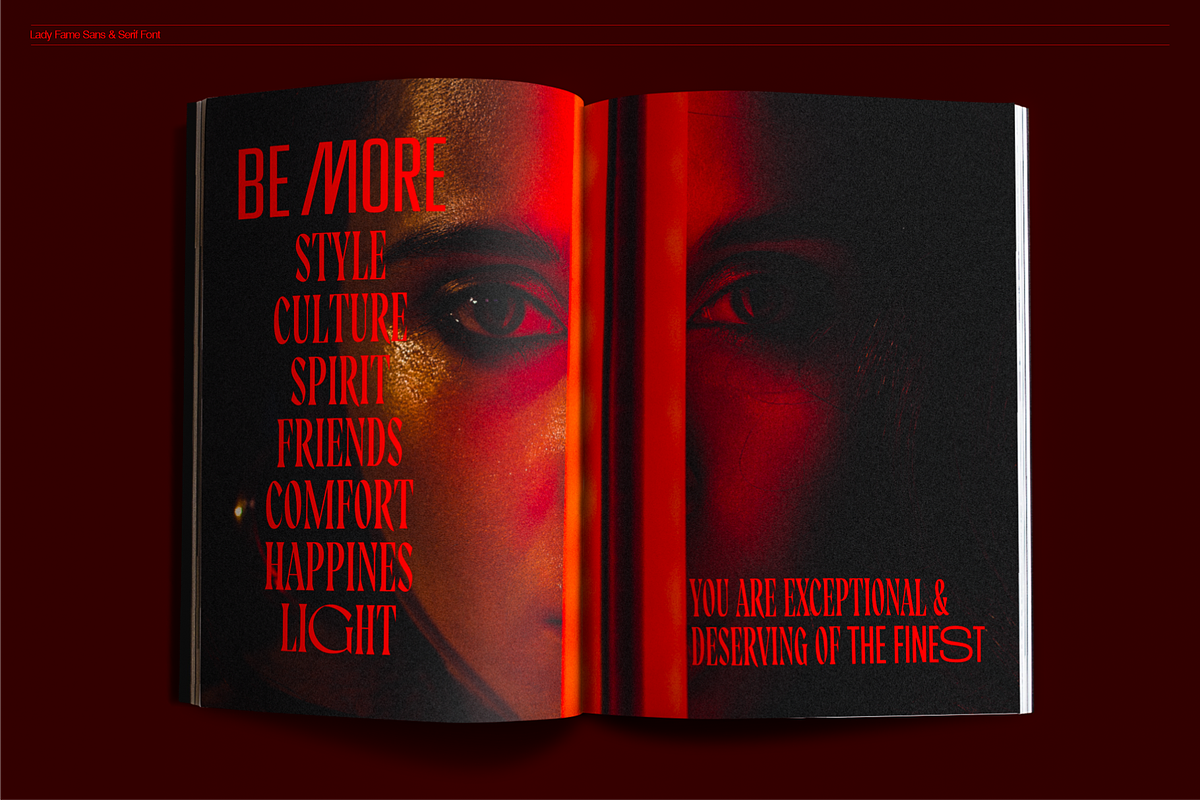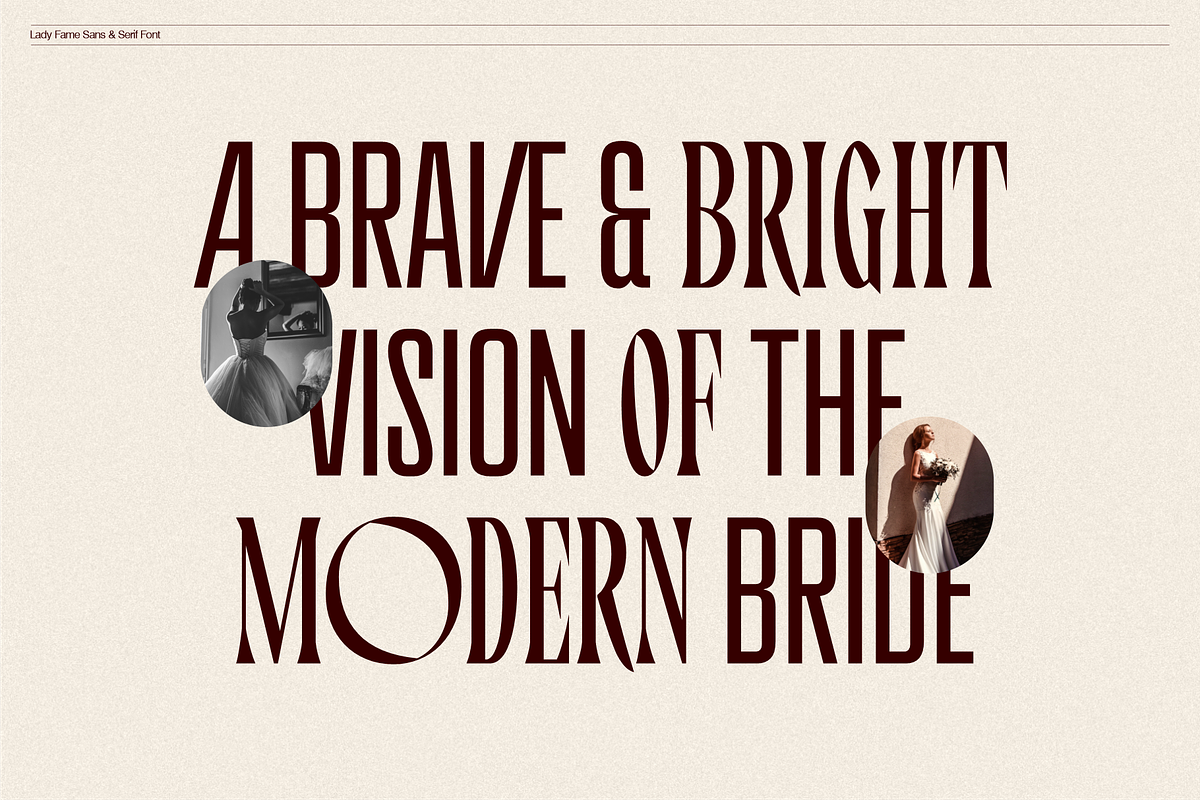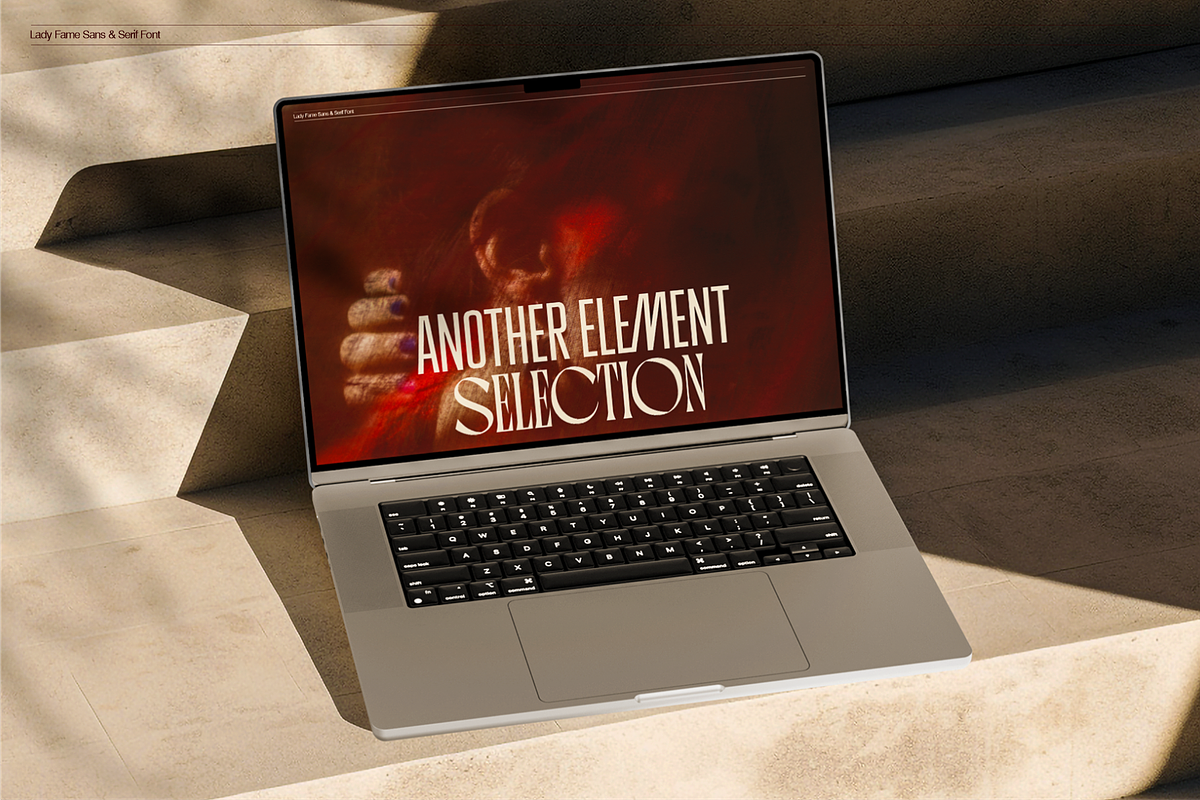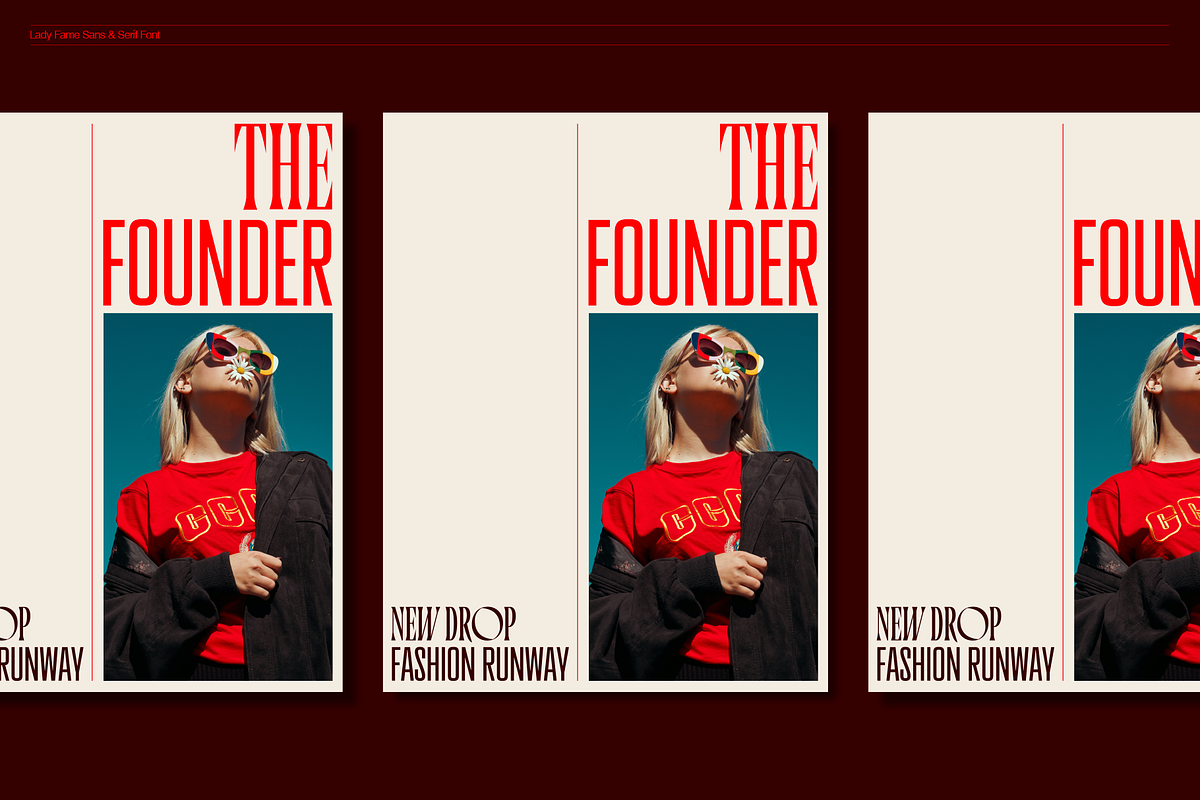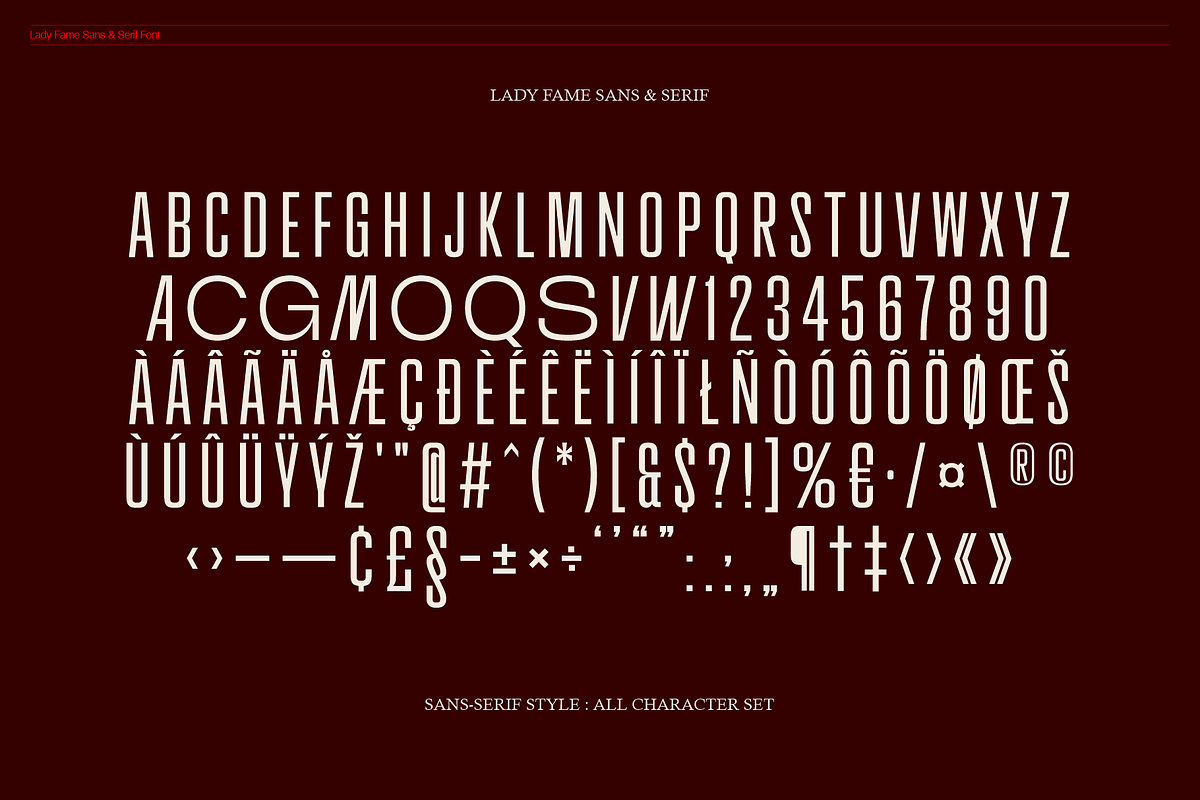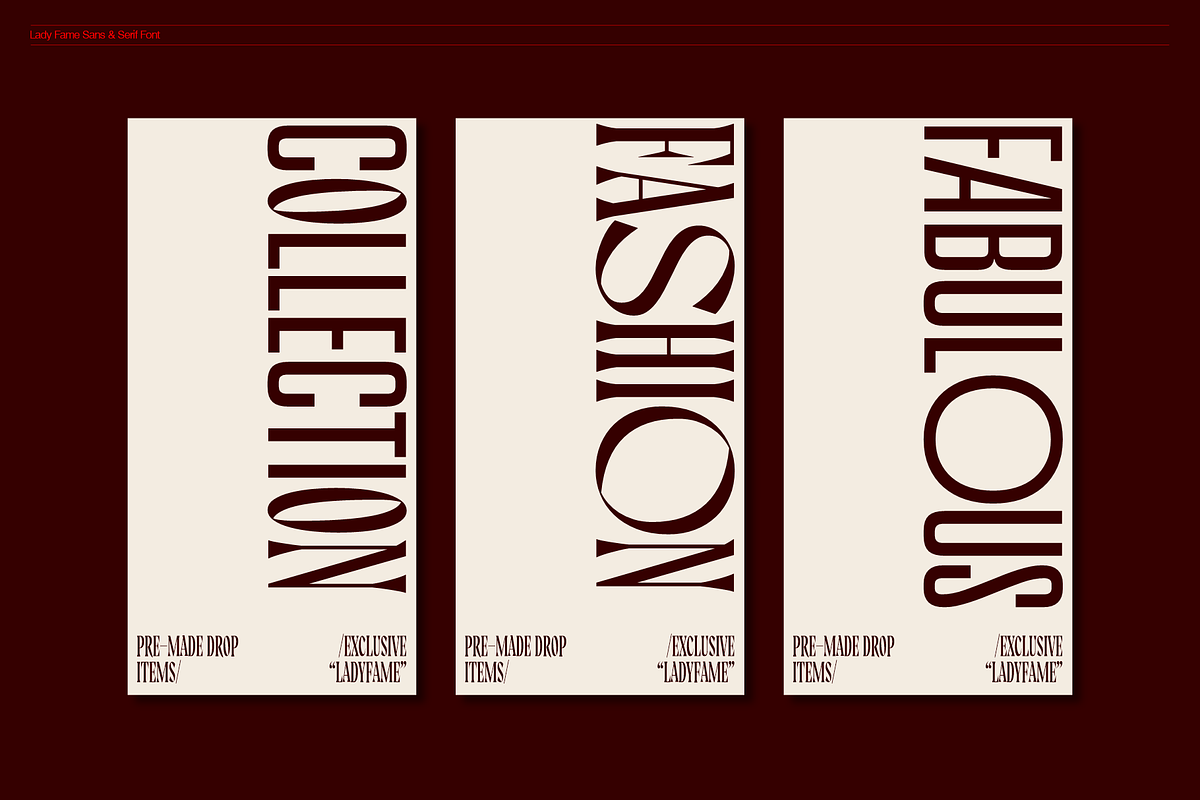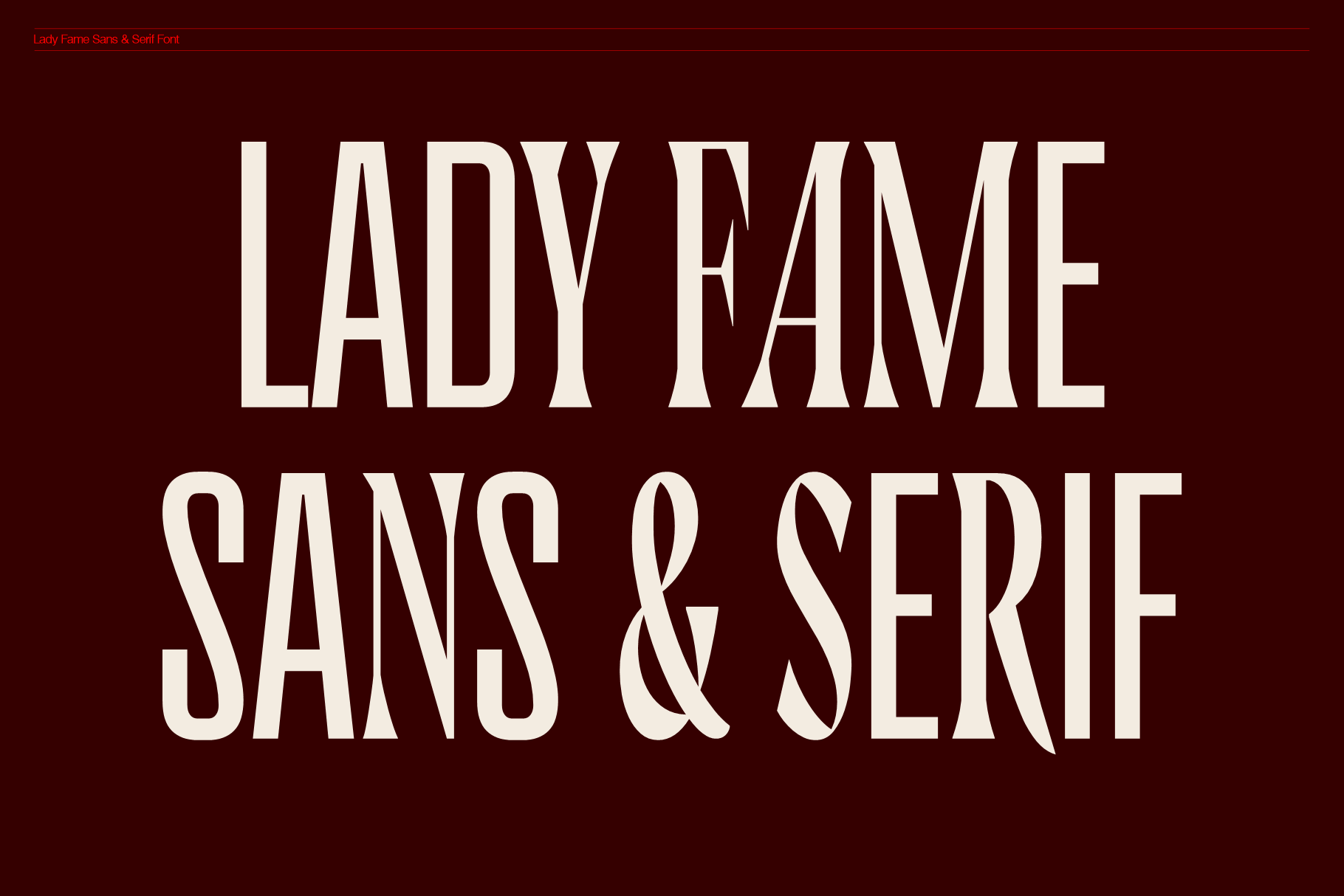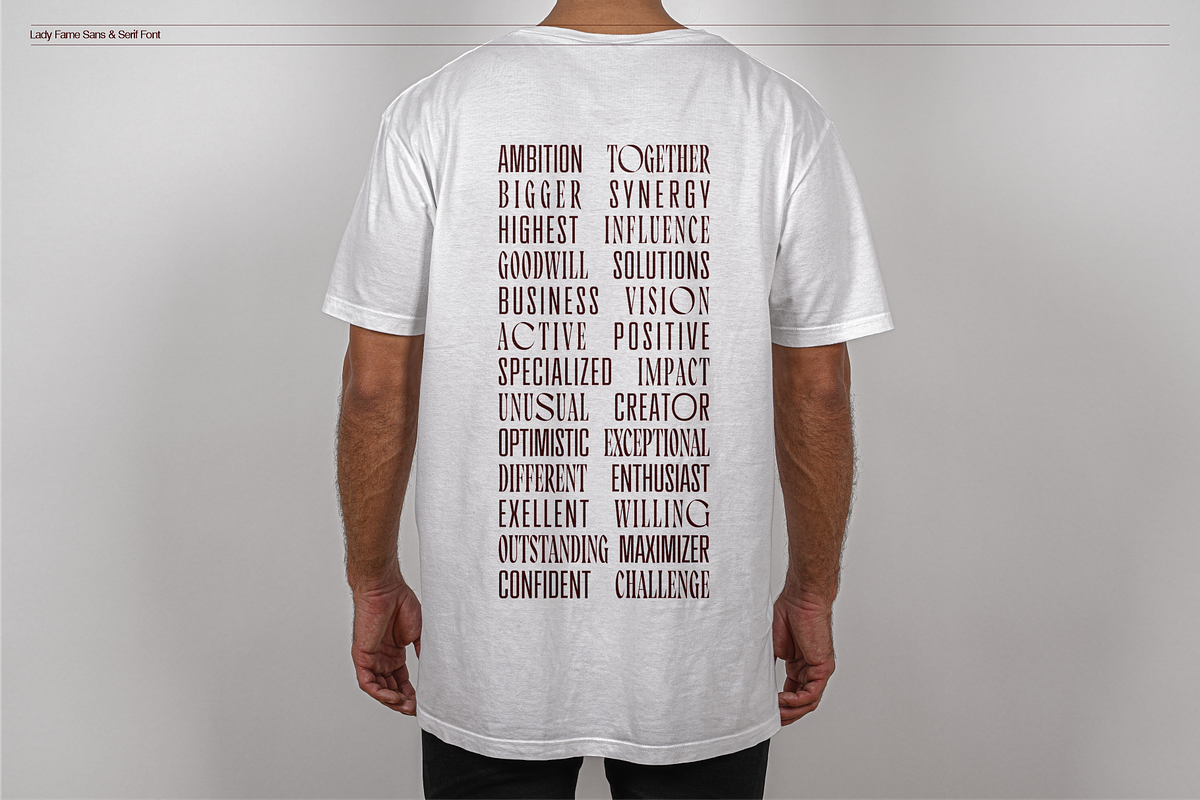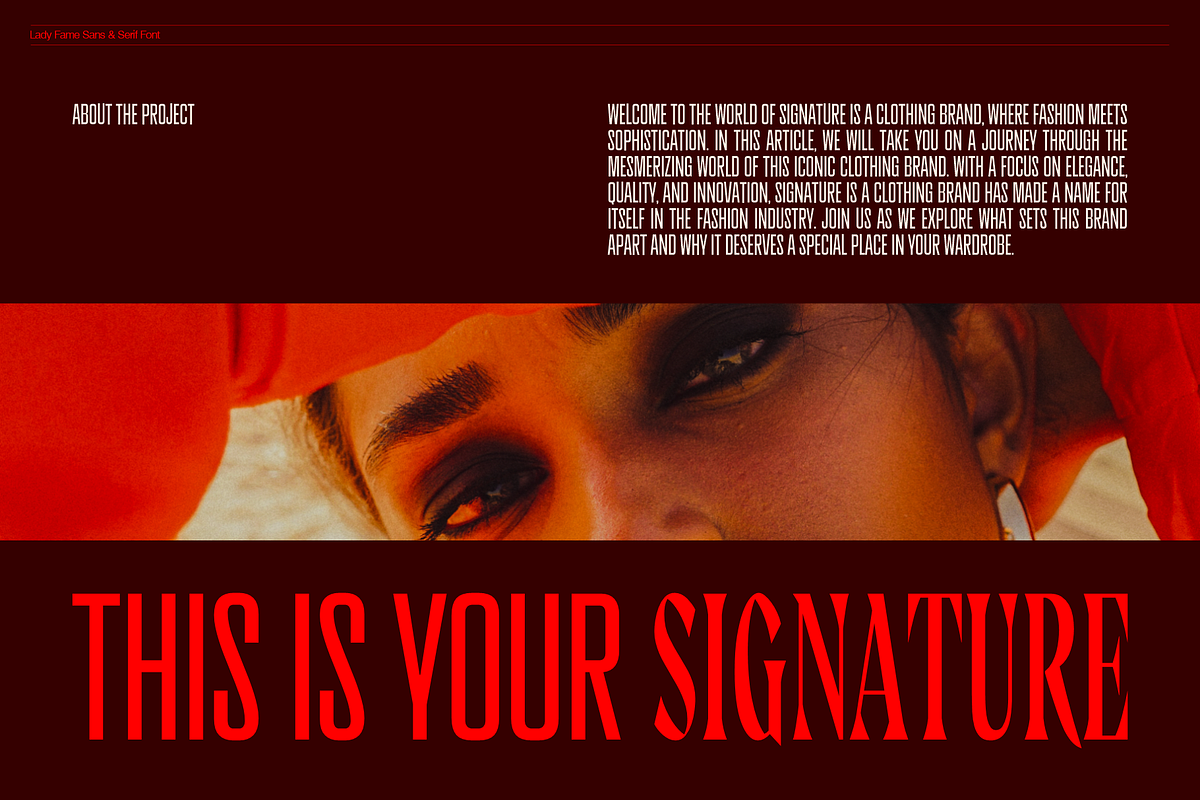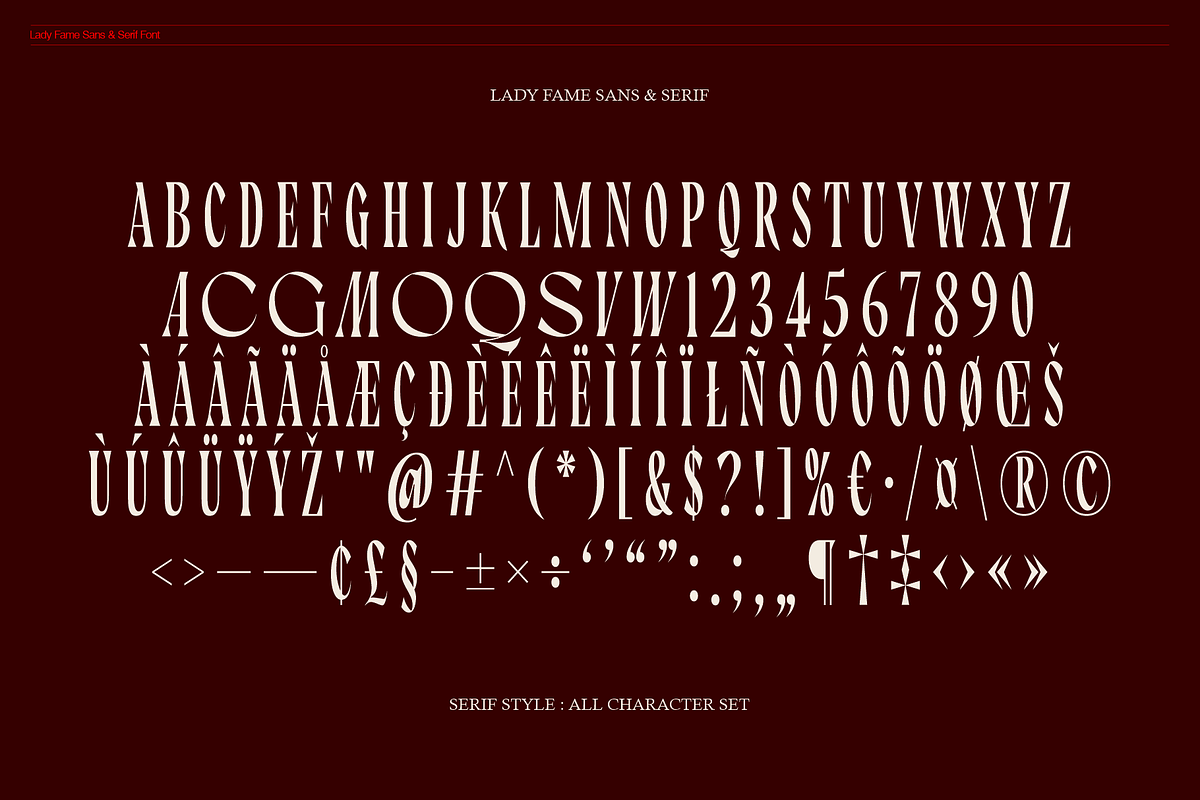
Lady Fame - Font Duo
Lady Fame presents itself as a captivating combination of fonts, skillfully blending sans-serif and serif styles. Lady Fame use of all-caps character is a design choice that instantly commands attention. It is font duo is not just aesthetically pleasing but also serves a functional purpose – elevating the overall readability of the text.